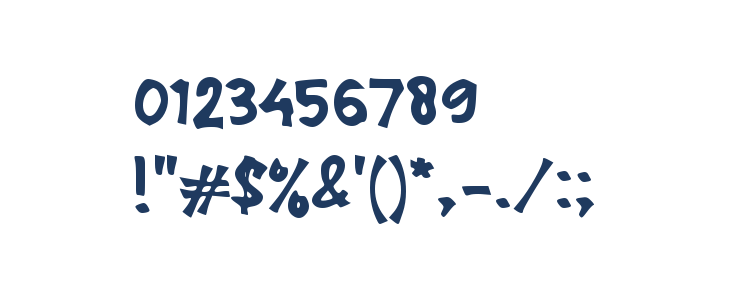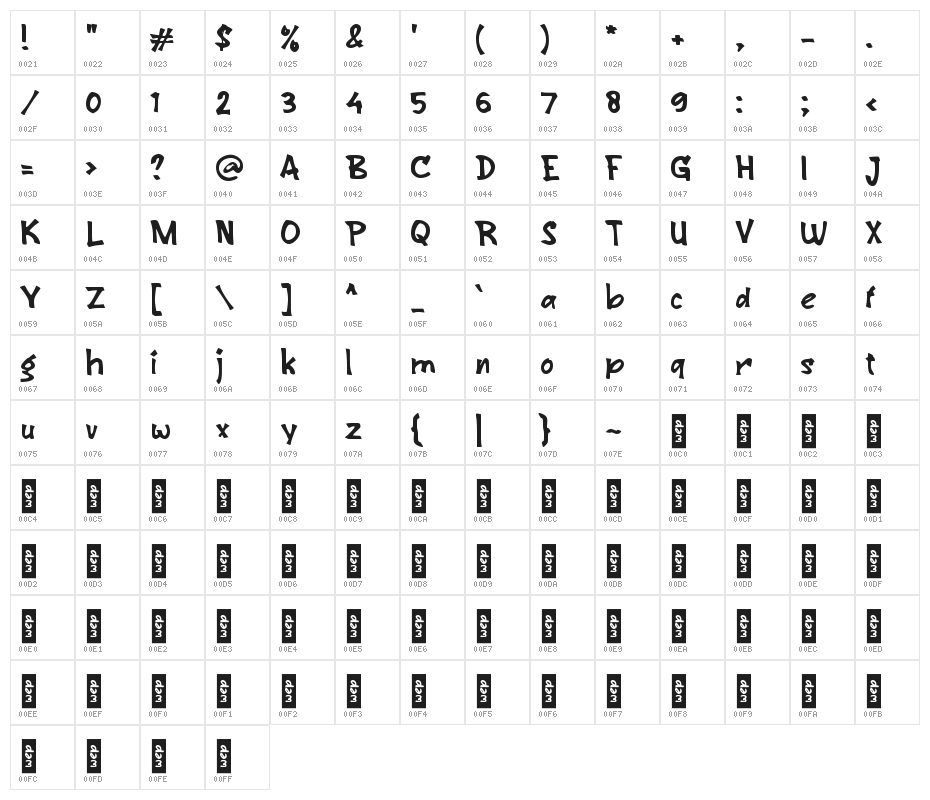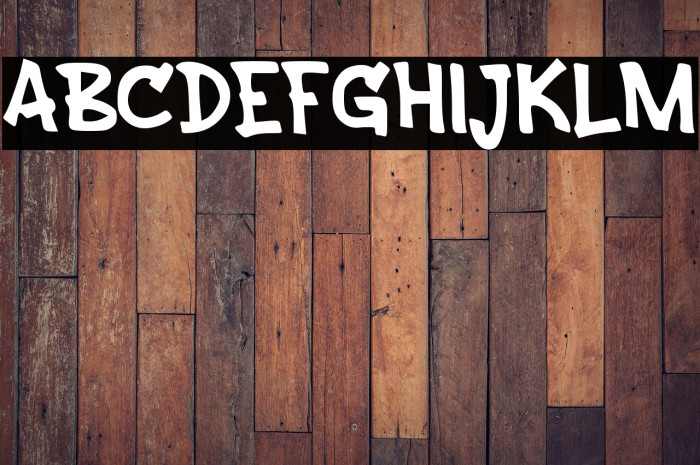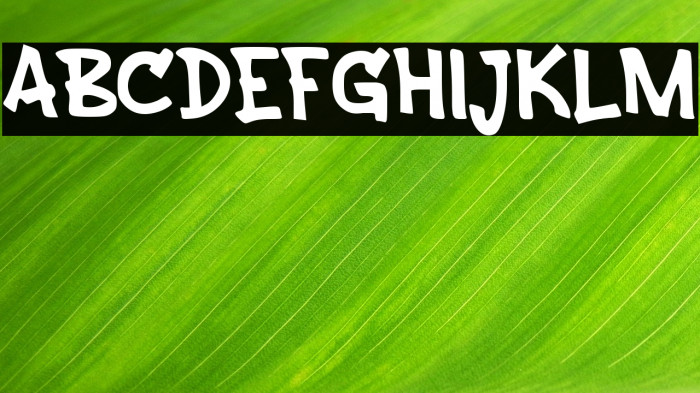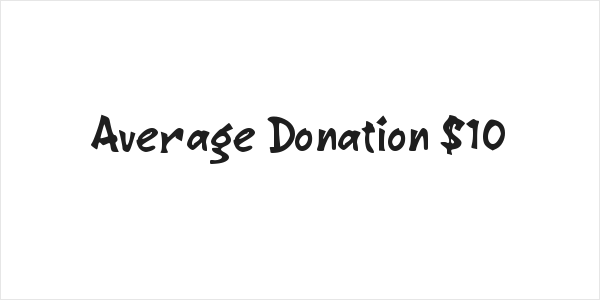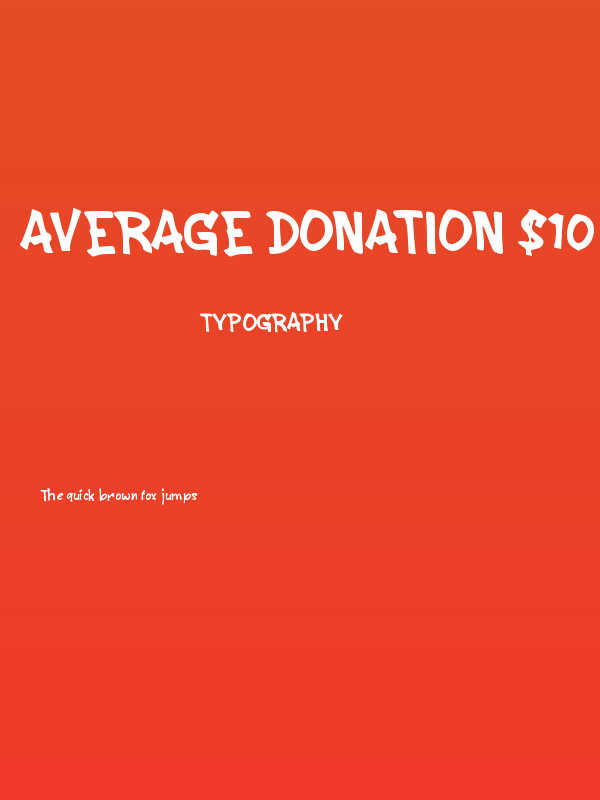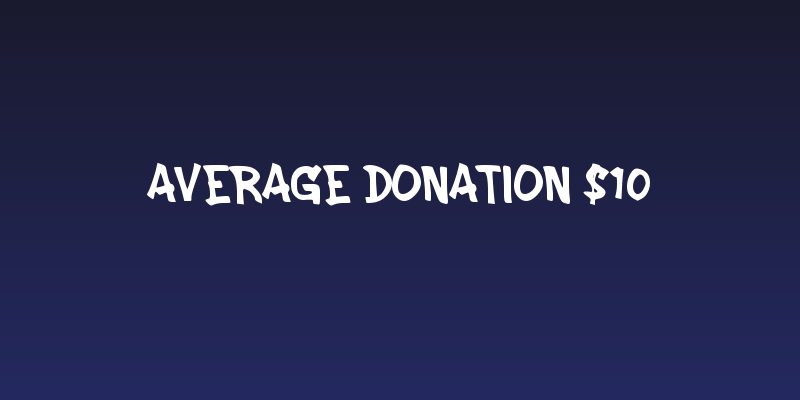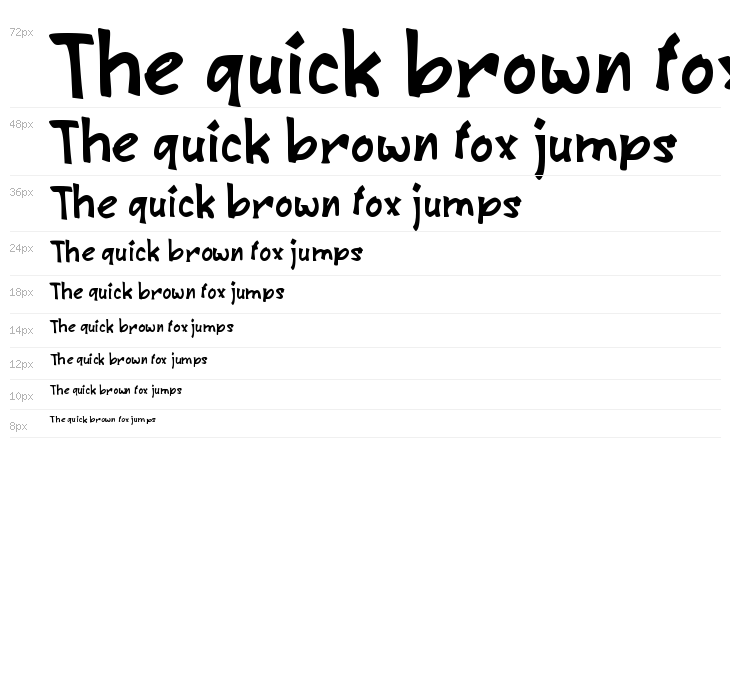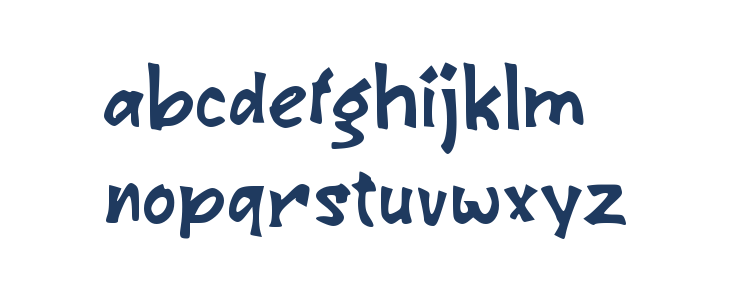
Average Donation $10 Font
Average Donation $10 Description
This font features a playful and energetic style with a handwritten appearance. The letters have a casual, slightly irregular form, giving them a lively and informal feel. The strokes are bold and consistent, with a medium contrast between thick and thin lines. The characters are well-spaced, maintaining readability while preserving the font's dynamic nature. The uppercase and lowercase letters are distinct, with the lowercase having a more rounded and flowing form. Numbers and special characters follow the same playful aesthetic, making this font suitable for creative and informal projects.